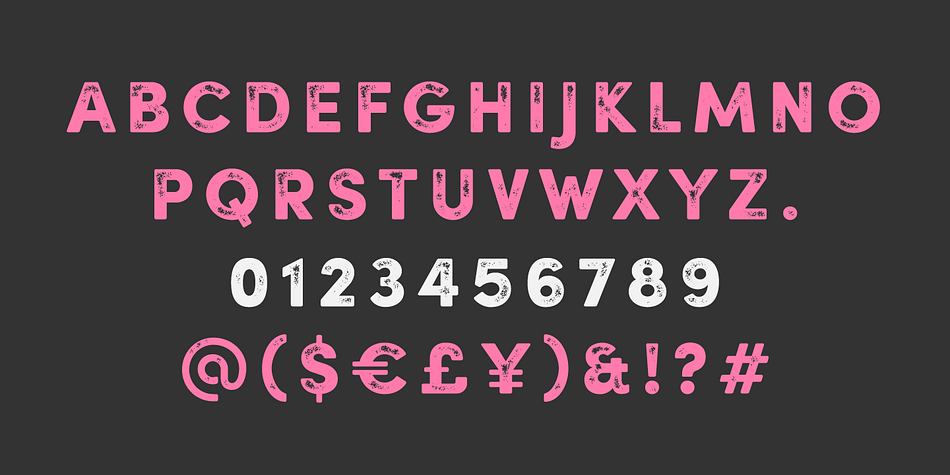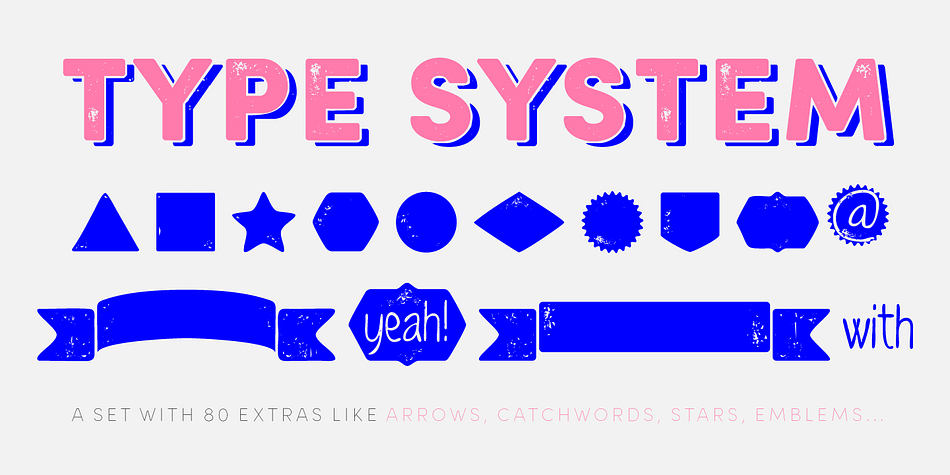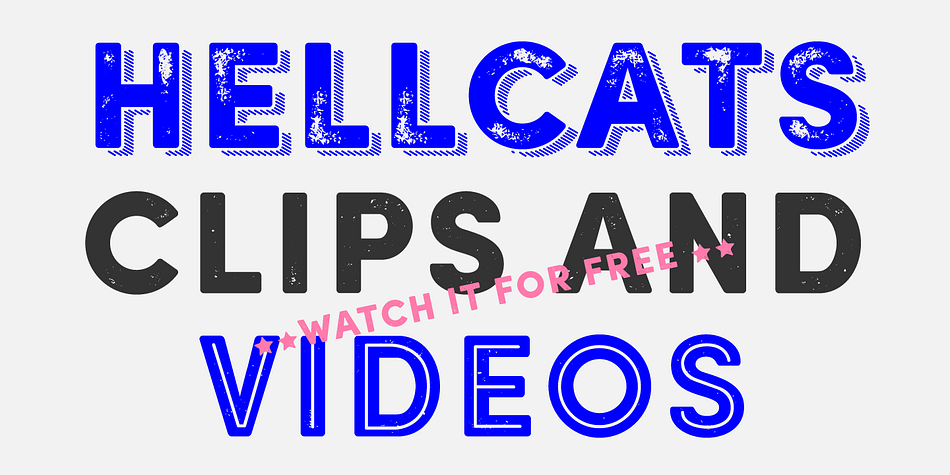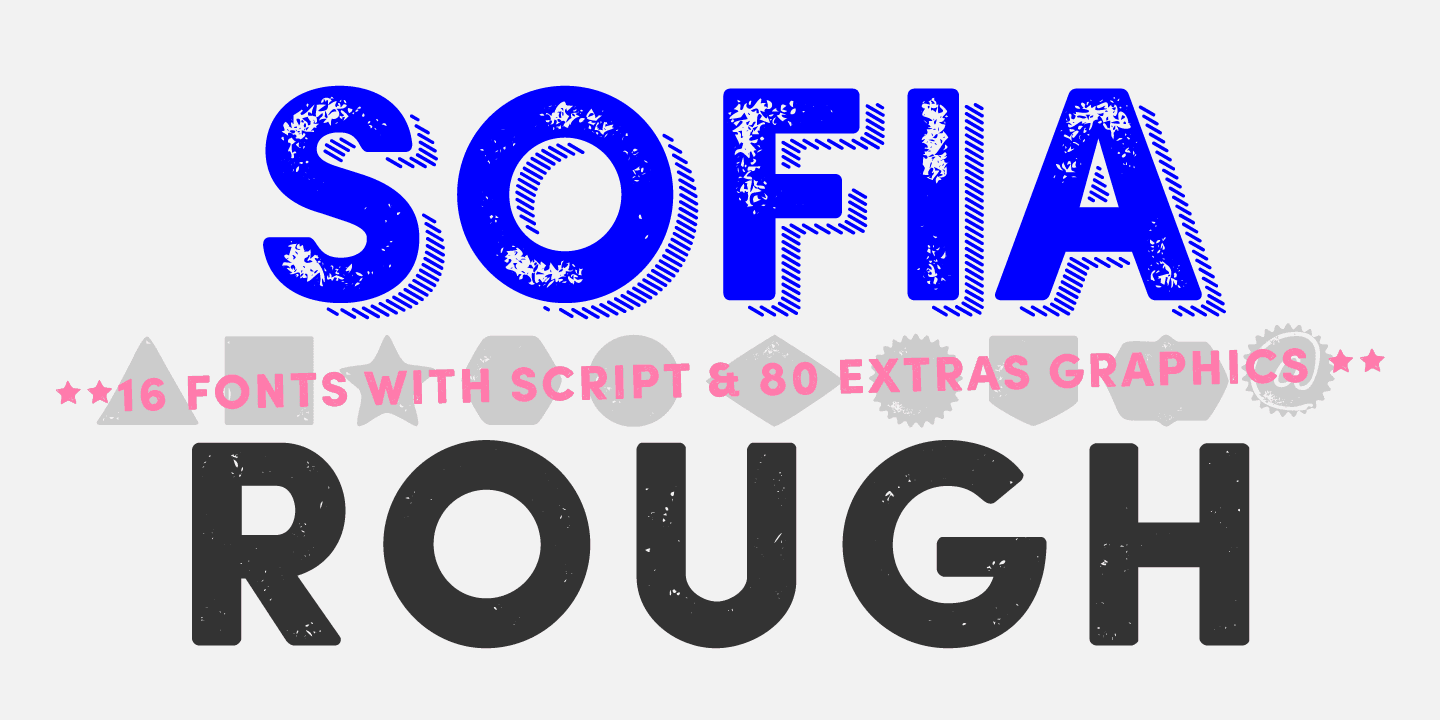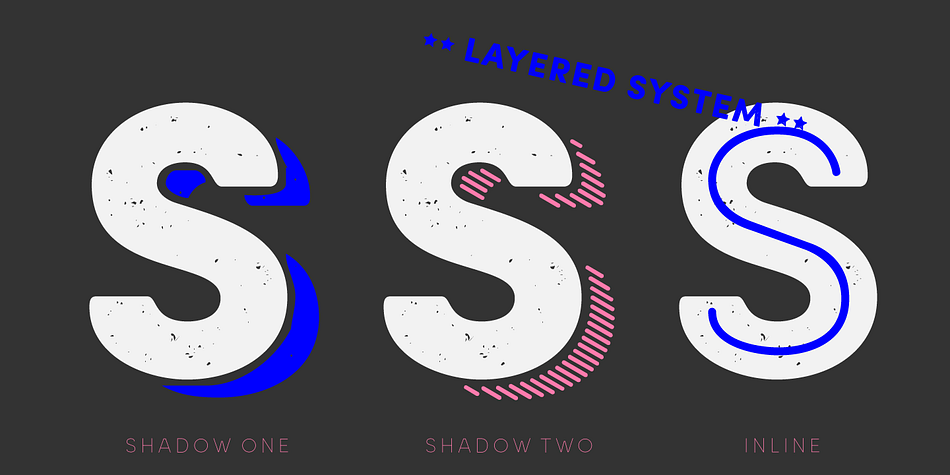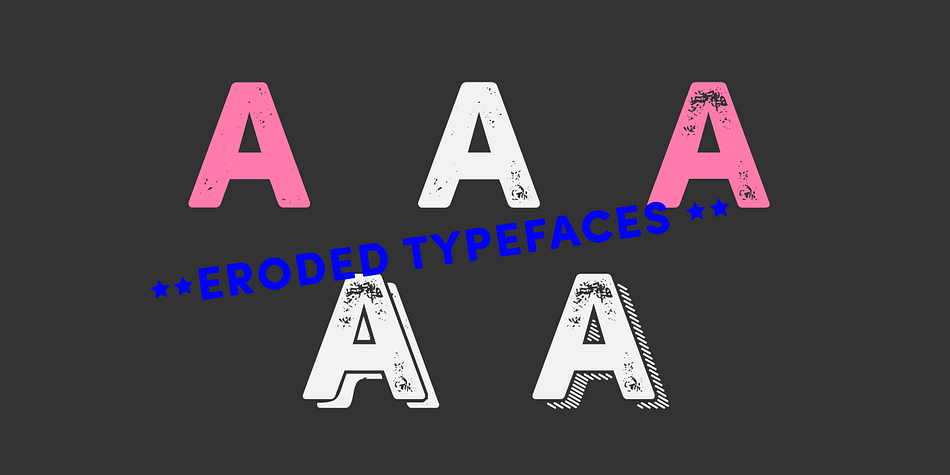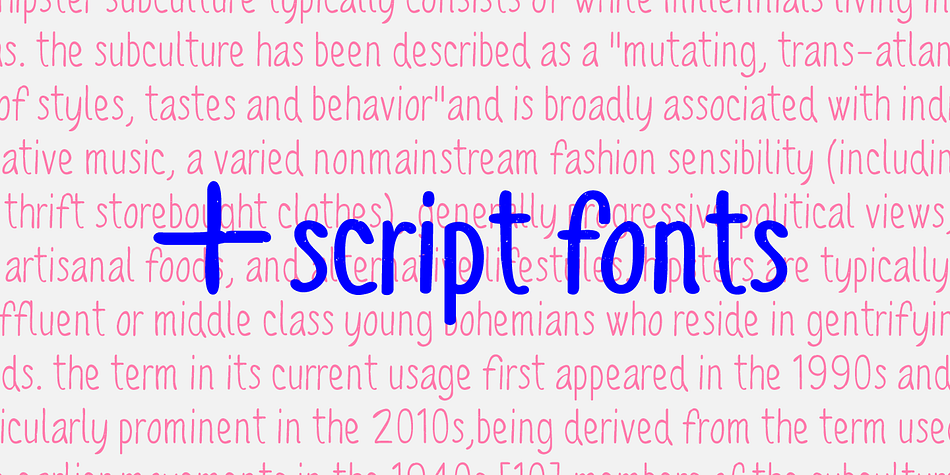
Sofia Rough is a multiple classification font family. This typeface has sixteen styles and was published by Mostardesign.
Based on the popular Sofia Pro typeface, Sofia Rough is a multifaceted font family with differents eroded variations. Sofia Rough contains sixteen fonts and two eroded sub families.With Sofia Rough Black for uppercase and Sofia Rough Script for lowercase you can create many variations. It has also several layers like shadows, inline or outline to create unique design. Sofia Rough contains also more than 80 extra graphics such as catchwords, ornaments, emblems, decorative lines, stars and many more.